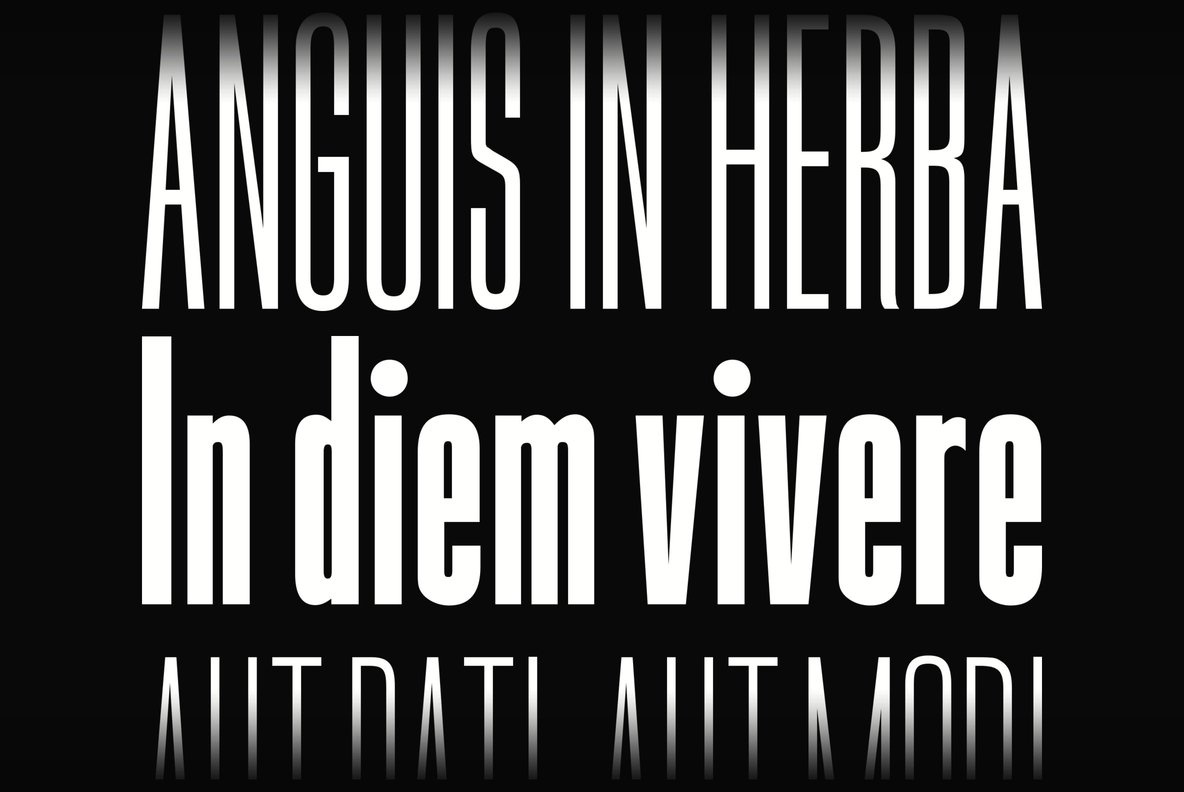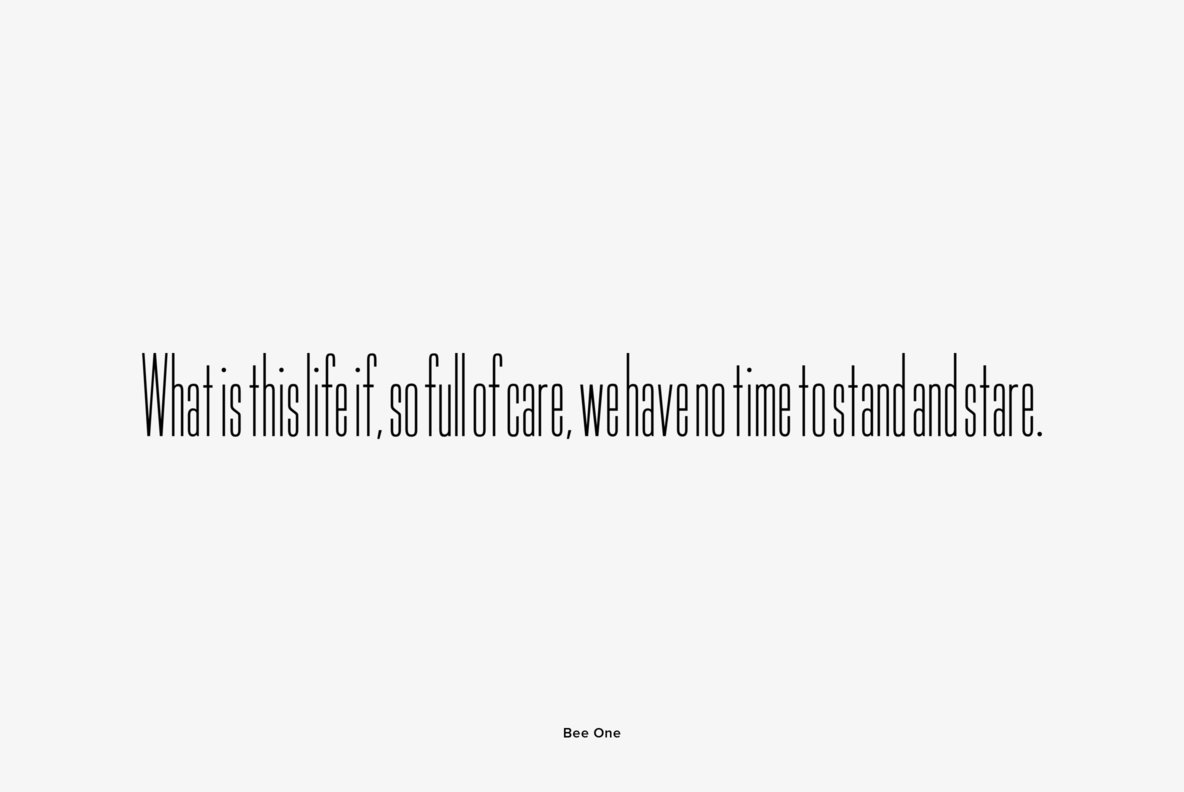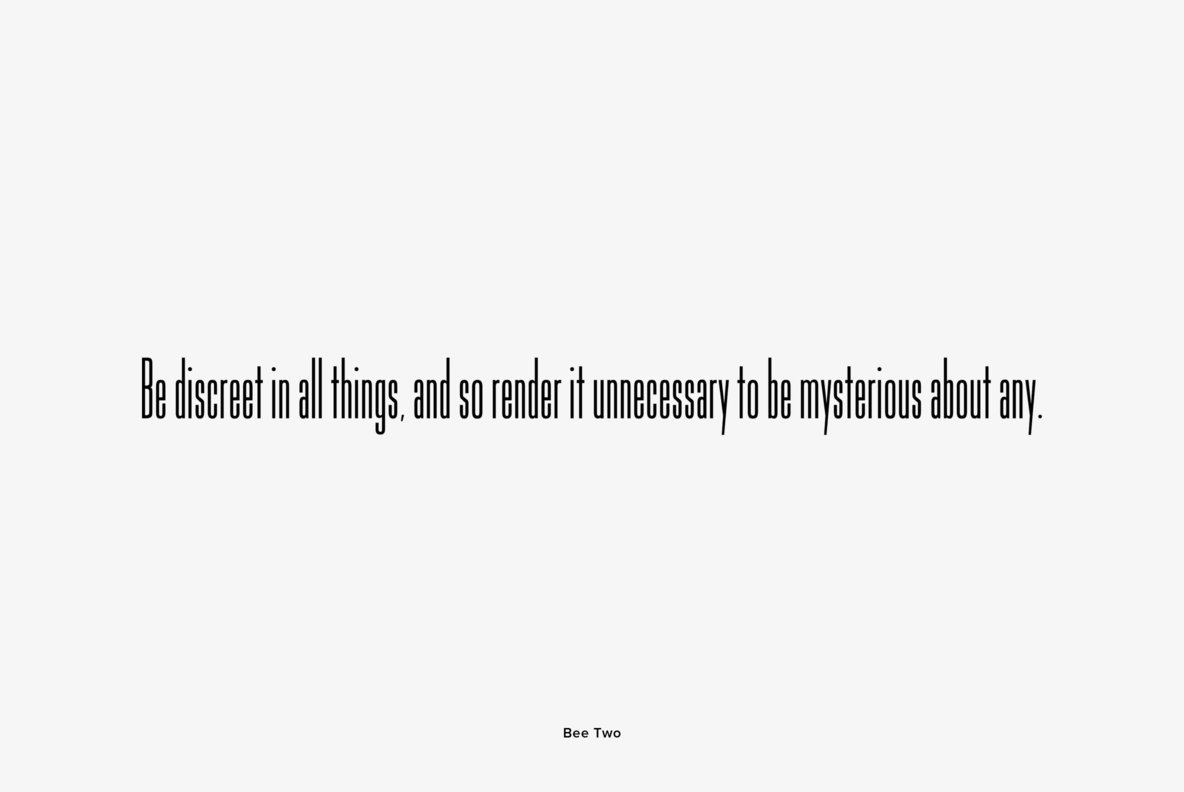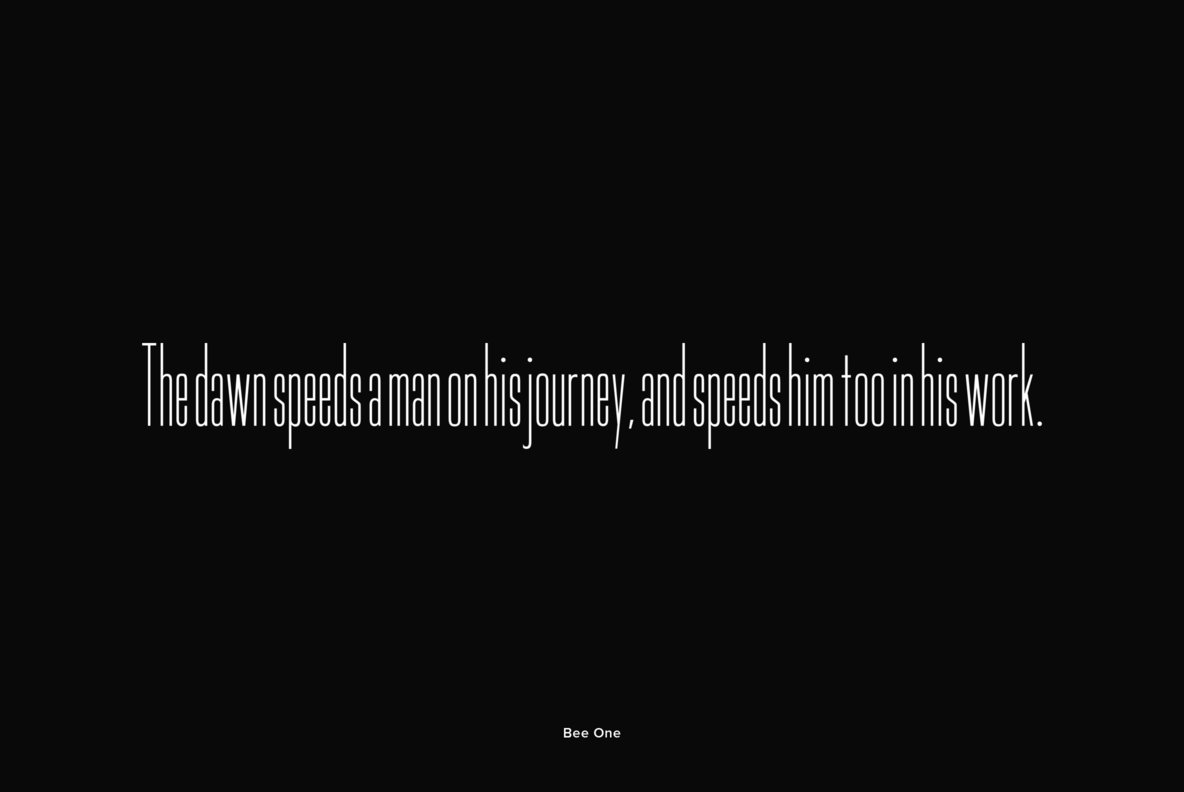
URW Bee
Bee is a tall, headline sans that was designed by URW Studio in 1995. Bee contains language support for West, East, Turkish, Baltic and Romanian.